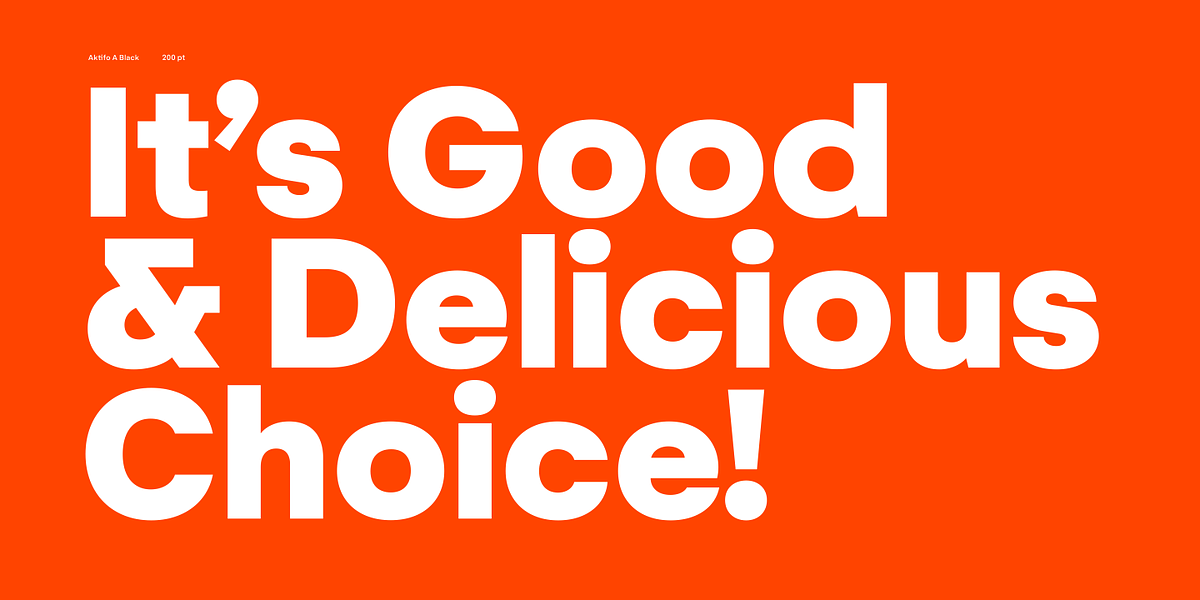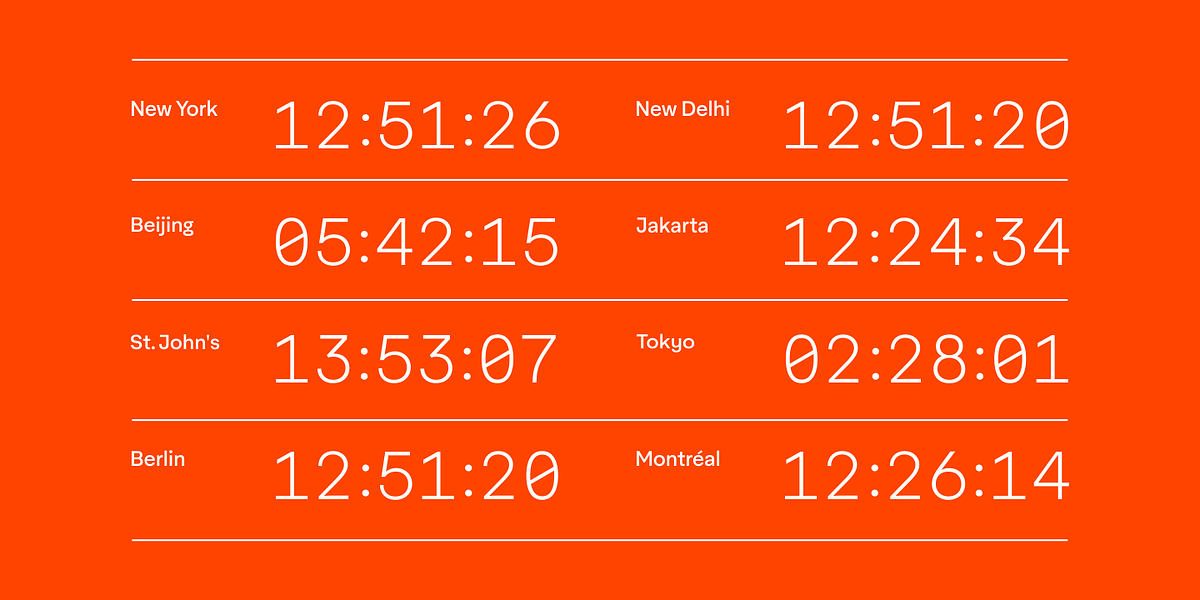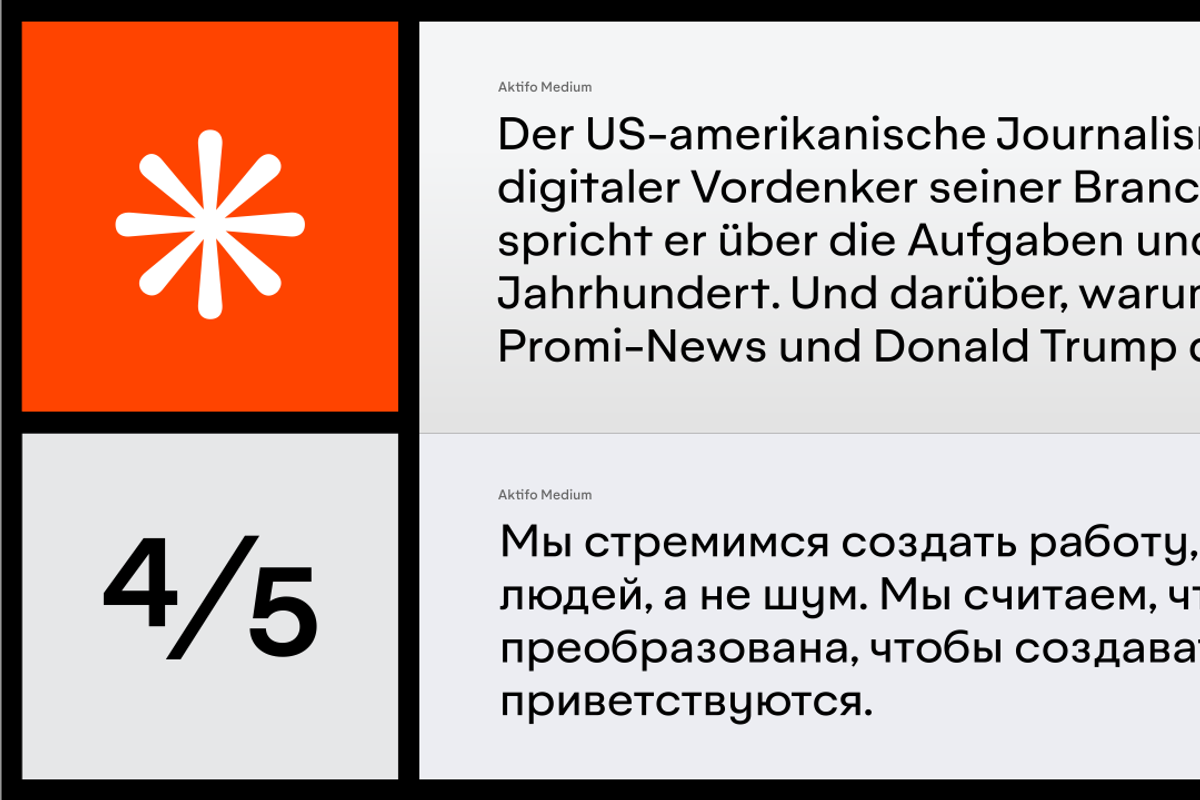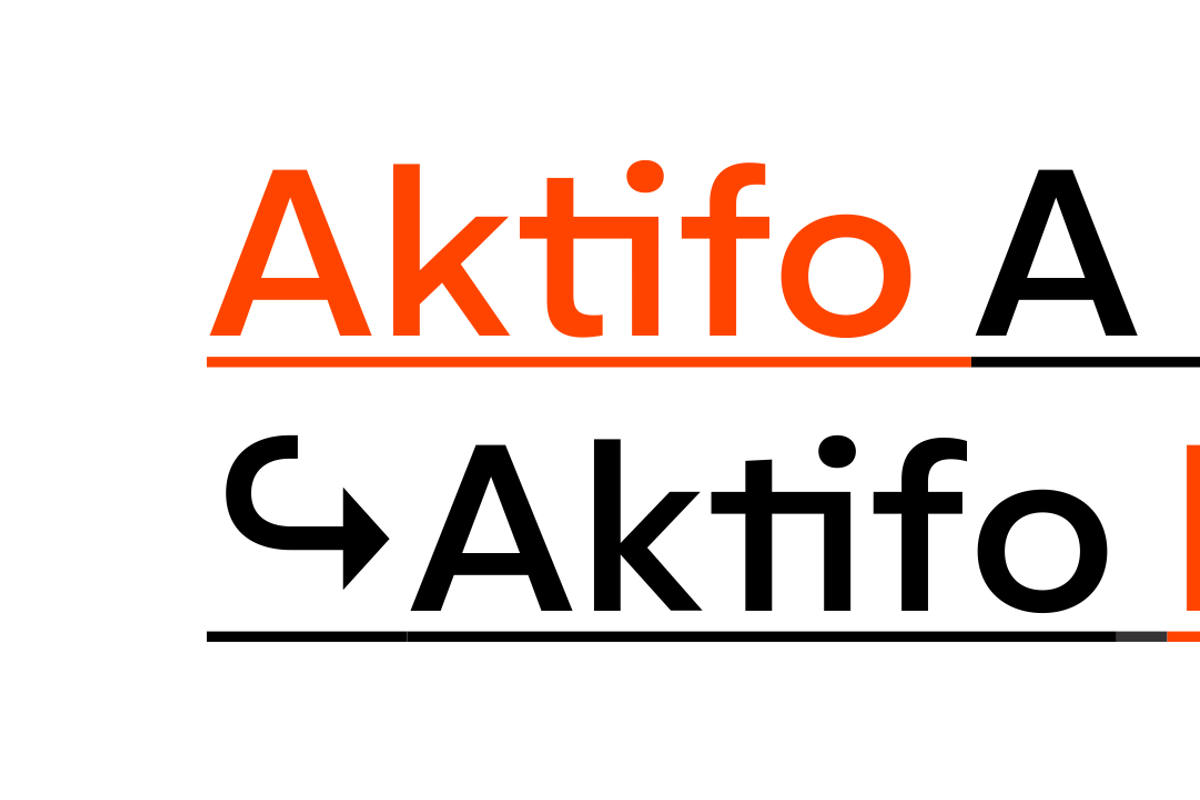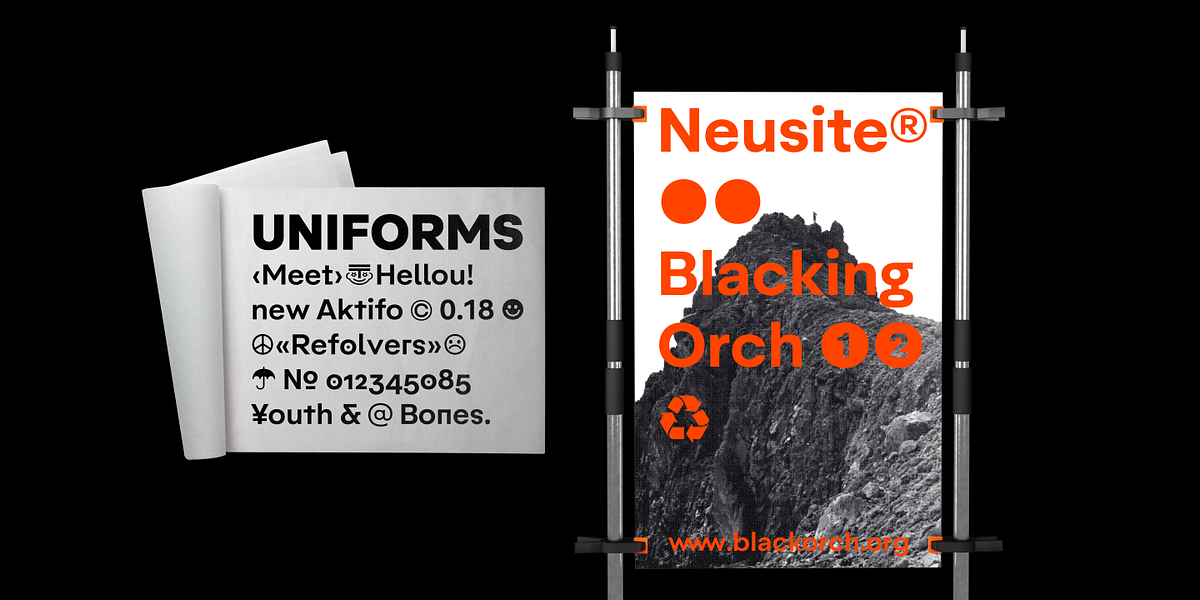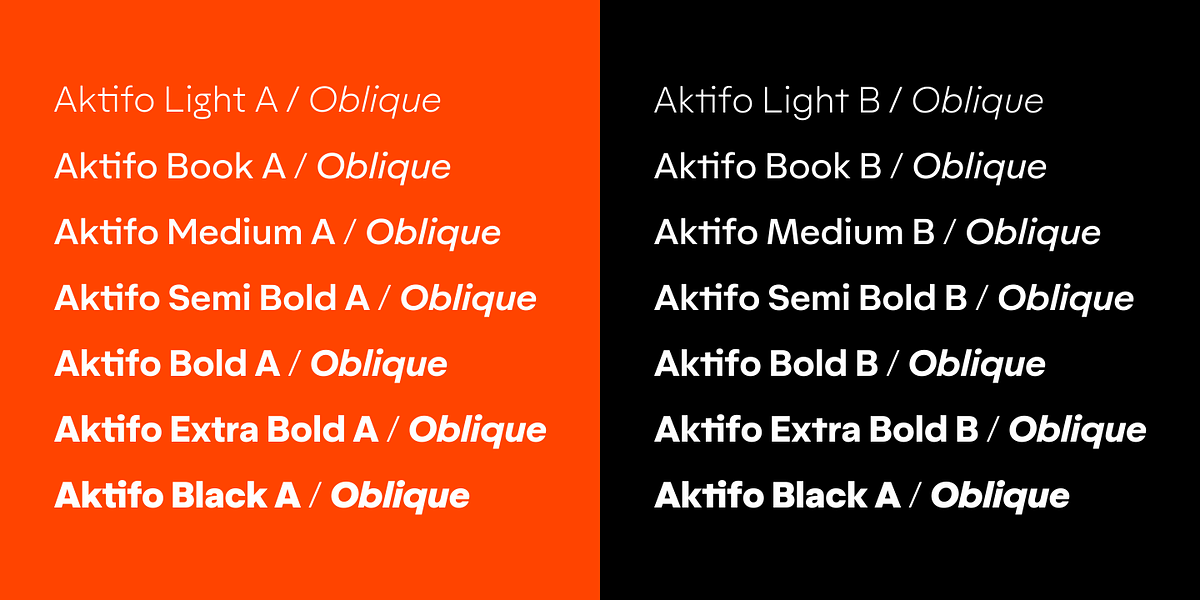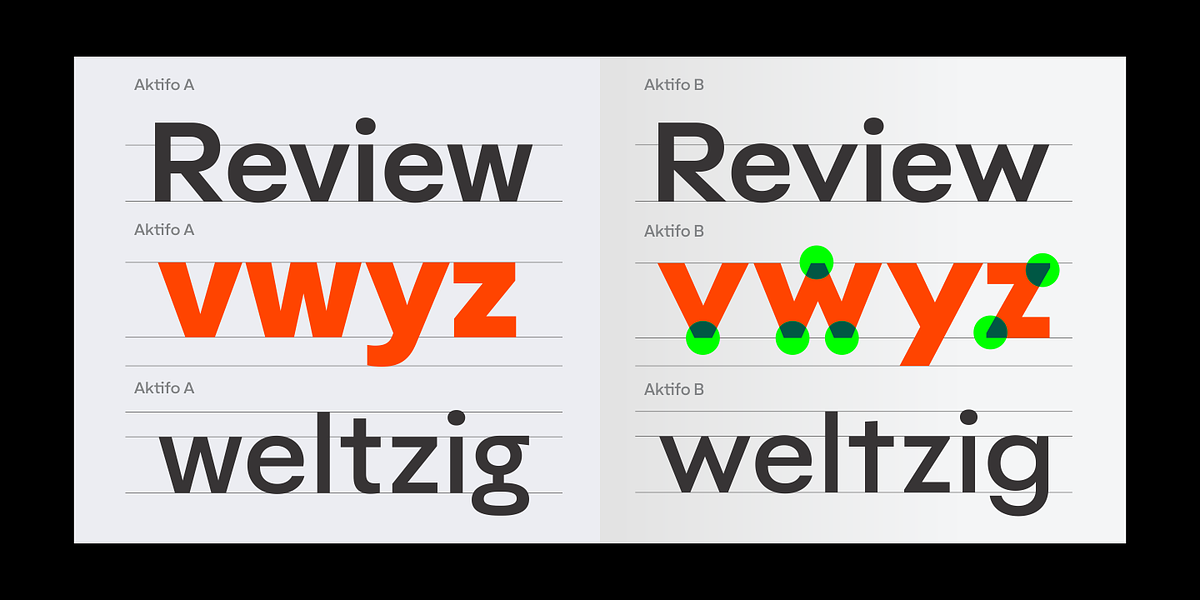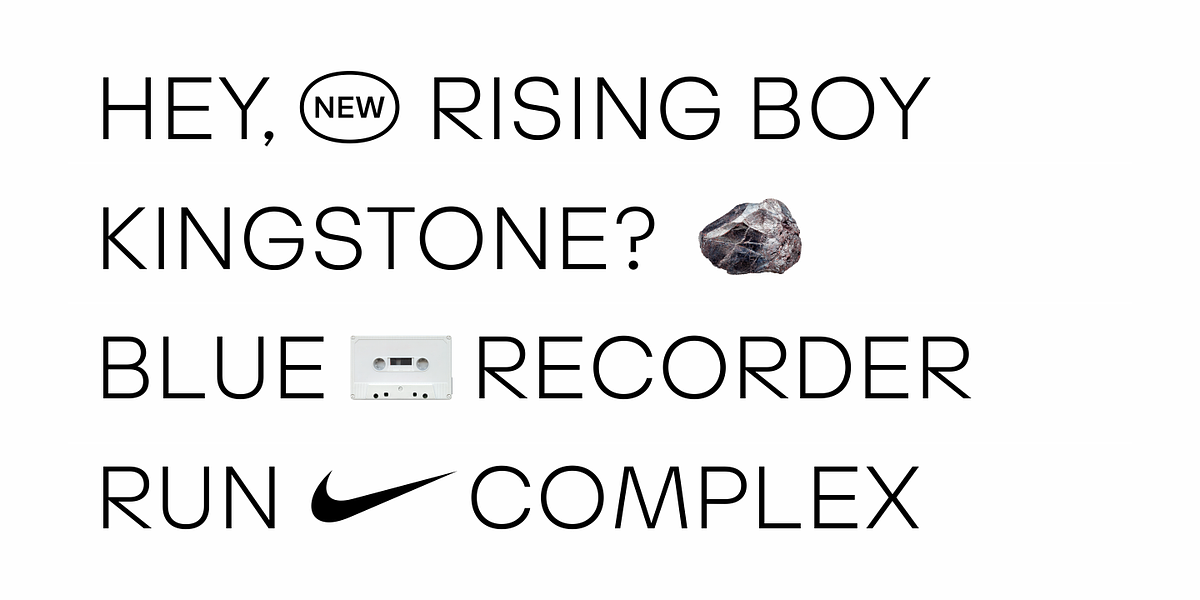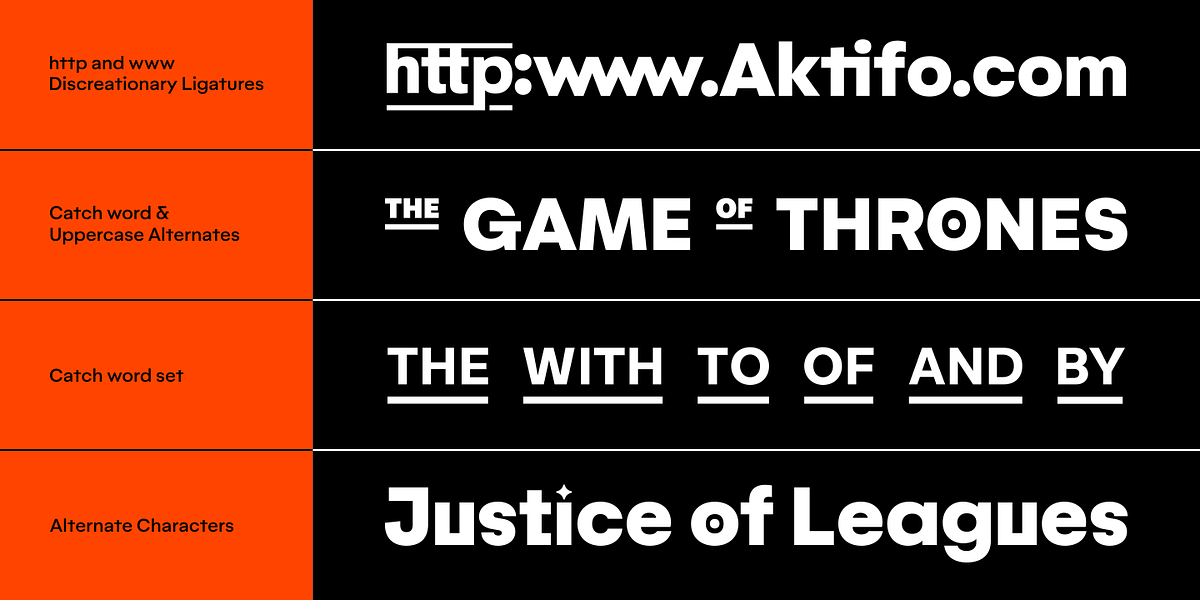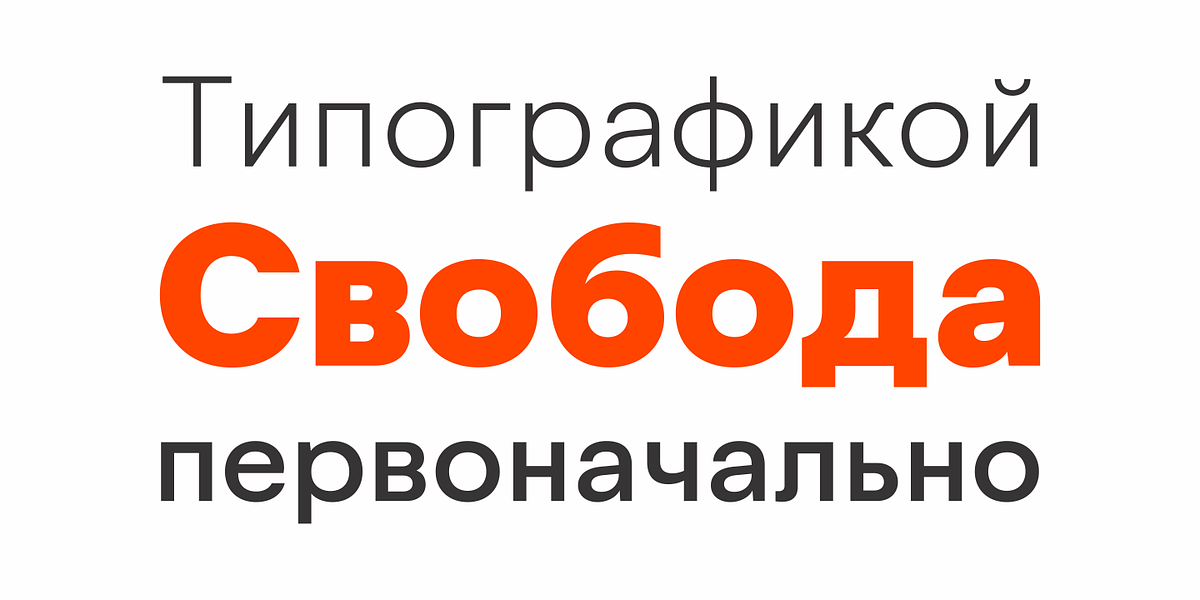
Aktifo
Aktifo is a modern geometric sans serif font designed with functionality in mind. Its construction is based on elementary geometric shapes and utilizes monolinear lines. The font comes in two families, Aktifo A and Aktifo B, each offering a range of weights from light to black. Both families feature subtle differences in character design and spacing. Aktifo is equipped with extensive OpenType features, including extended language support for Cyrillic and Greek (BETA), fractions, tabular figures, arrows, and ligatures.